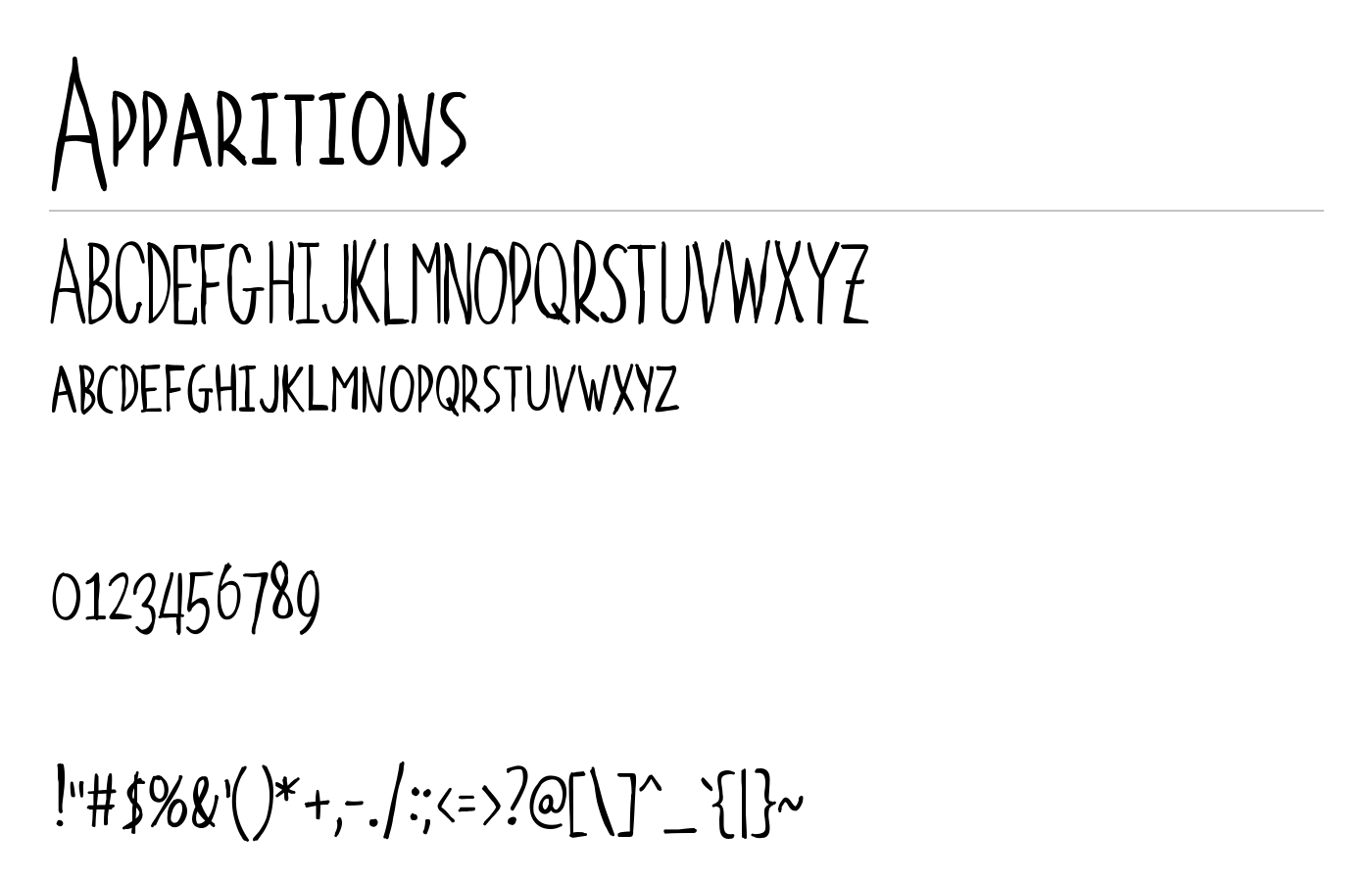
Apparitions is a quirky, handwritten sans serif font characterized by its tall, narrow letterforms and uneven strokes that give it a playful, slightly eerie vibe. With its light weight and loose spacing, it works well for creative designs like posters, Halloween-themed projects, or artistic branding that needs a casual yet distinctive touch. This font adds personality and charm where a traditional or formal font would feel out of place, making it great for eye-catching headlines and informal text.
Apparitions Font